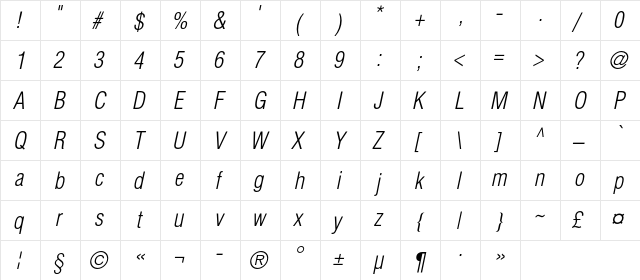
HeliosCondLightC Italic Font Preview
Design Context for HeliosCondLightC Typeface
HeliosCondLightC takes a measured approach to typography — its balanced proportions and neutral character make it a reliable workhorse for both digital and print work. The slanted form adds forward momentum and visual energy. Its slender proportions lend an understated elegance to any composition. The condensed width makes it efficient for tight spaces without sacrificing legibility.
Pro Tip: Use HeliosCondLightC for emphasis, pull quotes, and subheadings where its slanted energy can add rhythm to the layout.